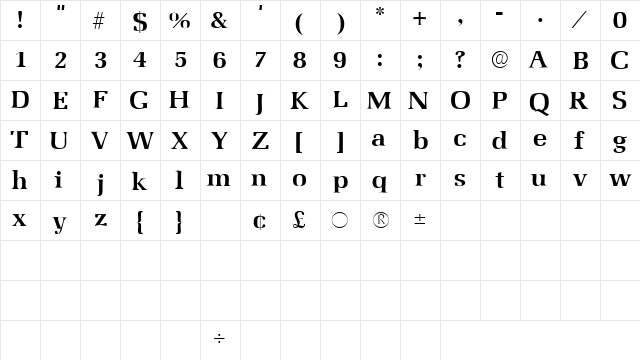
BroccusSSK Regular
Design Context for BroccusSSK Typeface
BroccusSSK is a composed and adaptable typeface that performs quietly and consistently across a wide range of design contexts.